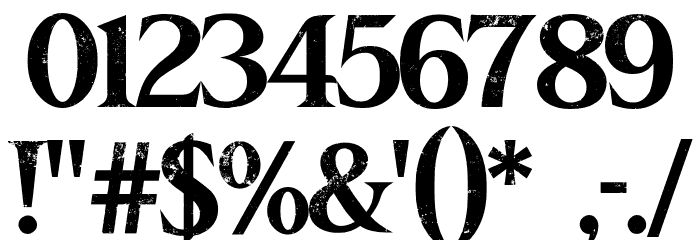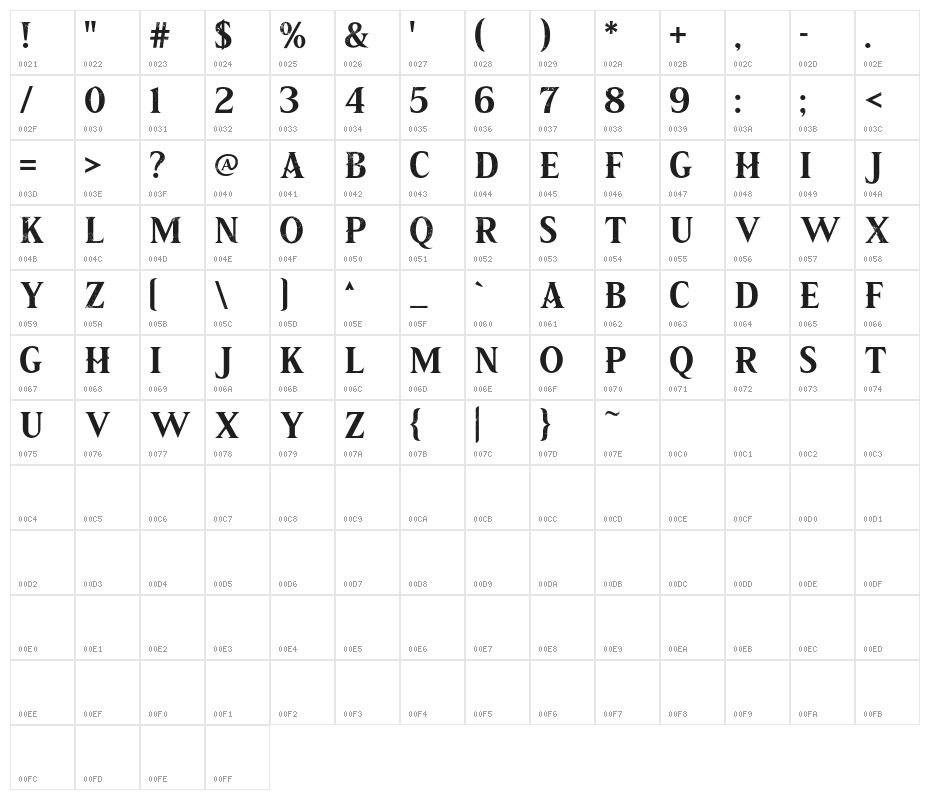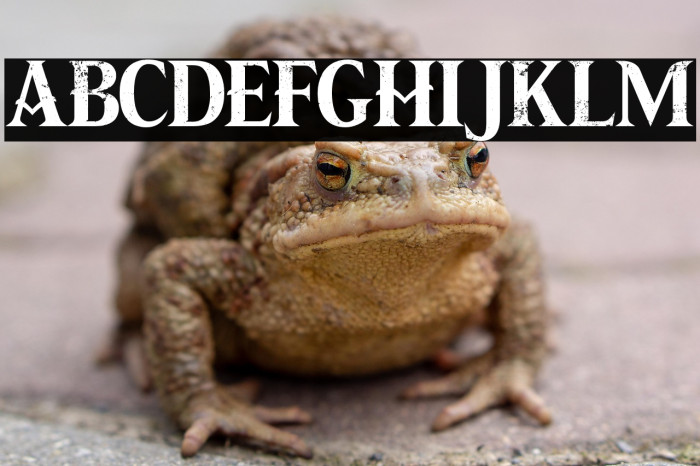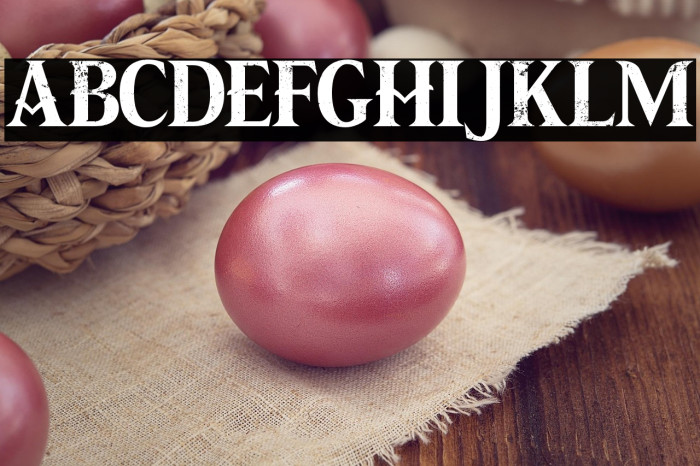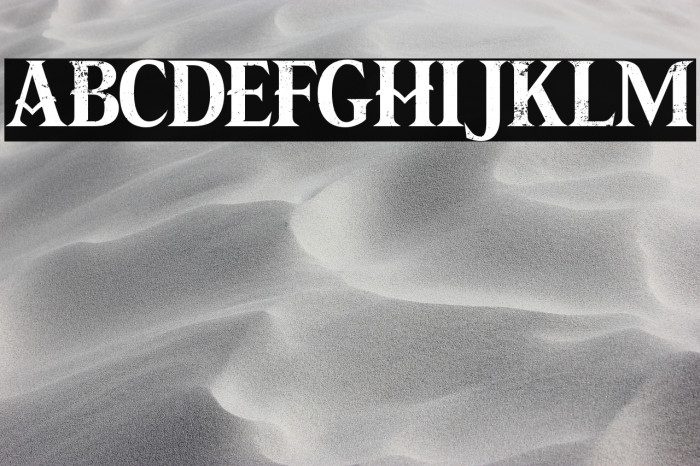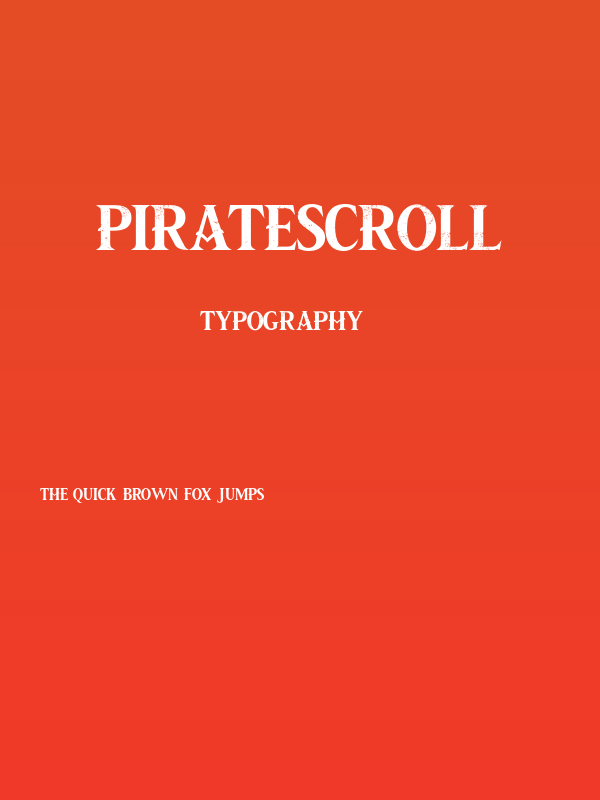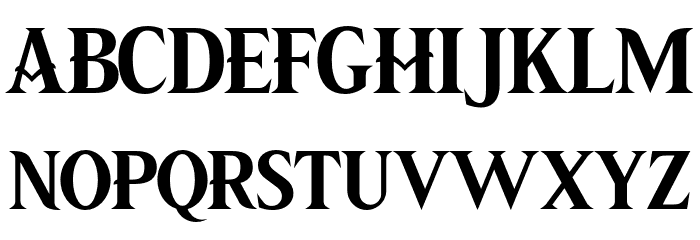
PIRATESCROLL Font
PIRATESCROLL Description
This font features a bold and rugged design, reminiscent of classic pirate themes. The characters are heavily stylized with a distressed texture, giving them an aged and weathered appearance. The serifs are pronounced, adding to the vintage and adventurous feel. The uppercase letters are particularly striking, with sharp angles and a strong presence. The numbers and special characters maintain the same distressed aesthetic, ensuring consistency throughout the typeface. This font is ideal for projects that require a touch of historical or nautical flair.
| Proposed Projects | Ideal for themed event posters, book covers, or branding for adventure-related products. |